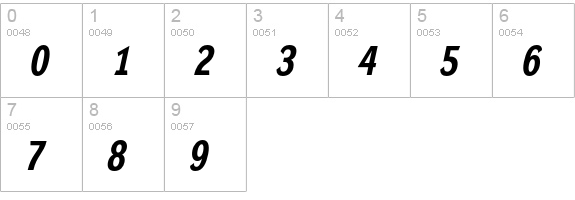
Dynamo Italic H M is a distinctive, italic variant in the Dynamo typeface family \xE2\x80\x94 well suited to design and typography projects.
Dynamo Italic H M font is a stylish and sophisticated typeface that exudes elegance and modernity. Its sleek and dynamic design makes it perfect for a wide range of design projects, from branding to packaging to editorial layouts. The italicized letters add a touch of flair and sophistication, making this font a standout choice for those looking to make a bold statement. What's even better is that Dynamo Italic H M font is available for free download at FontsMarket.com. This means you can easily access this high-quality font and incorporate it into your projects without any additional cost. Don't miss out on the opportunity to enhance your designs with the striking beauty of Dynamo Italic H M font - download it today and take your creations to the next level!